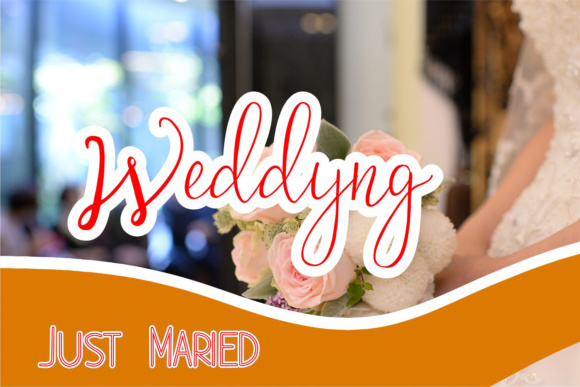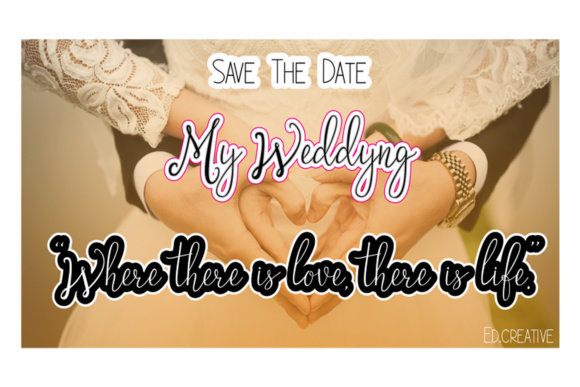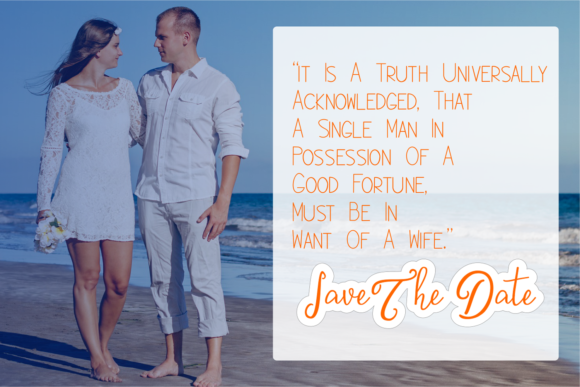
Introduction to Patraovila Duo Font Font
Fonts play a crucial role in design, and the Patraovila Duo Font font is a typeface that brings both character and versatility to any project. Whether you’re working on a branding project, a website, or a print design, the Patraovila Duo Font font offers a unique style that can elevate your work.
Patraovila Duo is a unique, cool and modern handwritten font.
Itβs unique style makes it perfect for all your design projects such as: logos, signatures, labels, packaging designs, blog headlines, and much more Patraovila Script comes in four beautiful styles which makes it perfect for many designing needs.
Key Features of Patraovila Duo Font Font
Why Choose Patraovila Duo Font Font?
The Patraovila Duo Font font is more than just a typeface β it’s a design tool that helps you communicate your message with style and clarity. Its unique character set and versatile design make it suitable for a wide range of applications, from elegant invitations to bold headlines.
With its carefully crafted letterforms and balanced proportions, the Patraovila Duo Font font ensures readability and visual appeal across all mediums.
What makes Patraovila Duo Font font special?
The Patraovila Duo Font font stands out with its unique design, exceptional readability, and versatility across various design applications.